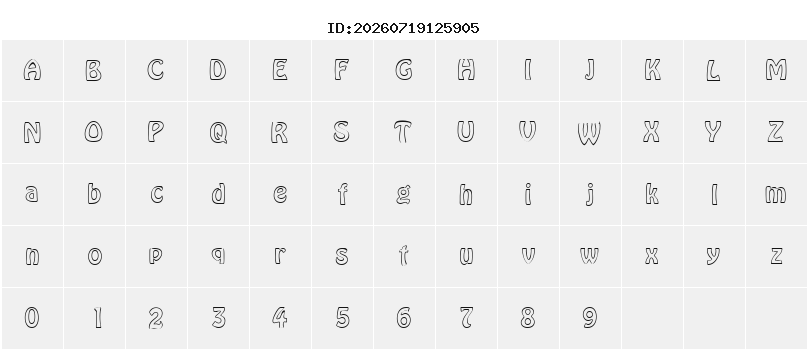
Clown Hollow Preview
• Font Name: Clown Hollow
• Full Font Name: Clown Hollow
About Clown Hollow.ttf
Clown Hollow.ttf is a modern, elegant sans-serif font designed for ultimate readability and visual harmony. Perfect for branding, headlines, web design, and print materials.